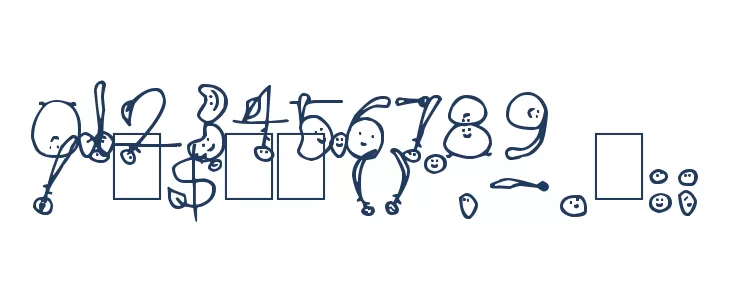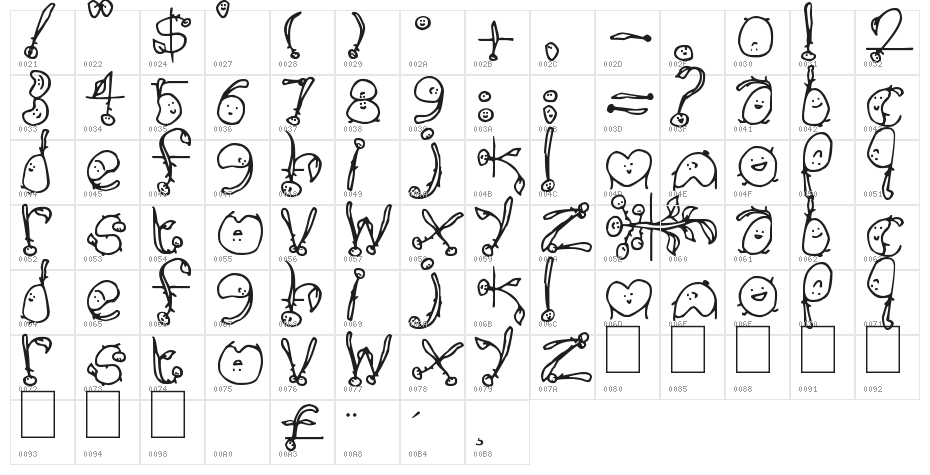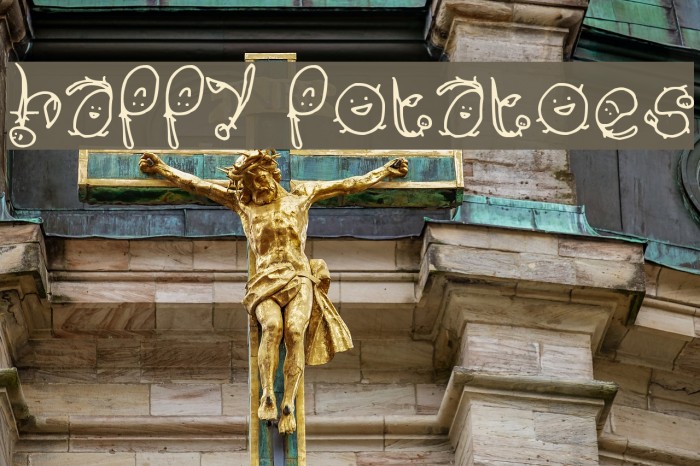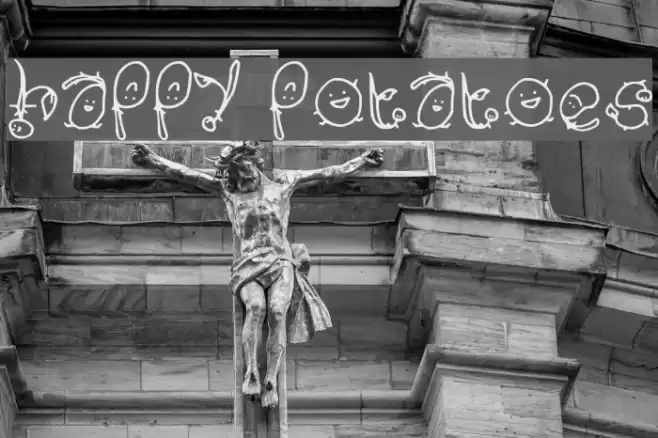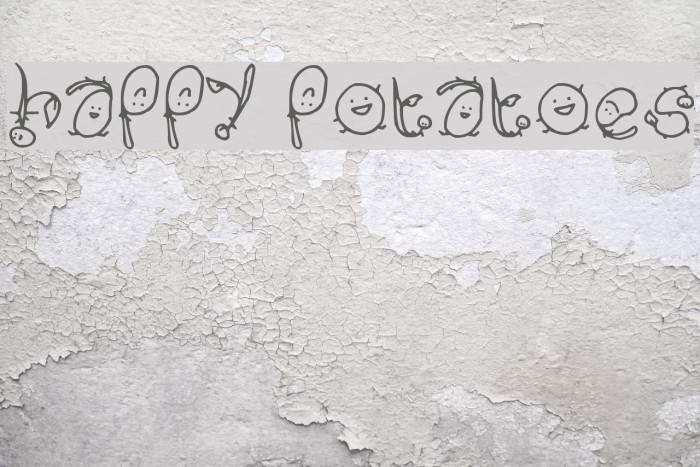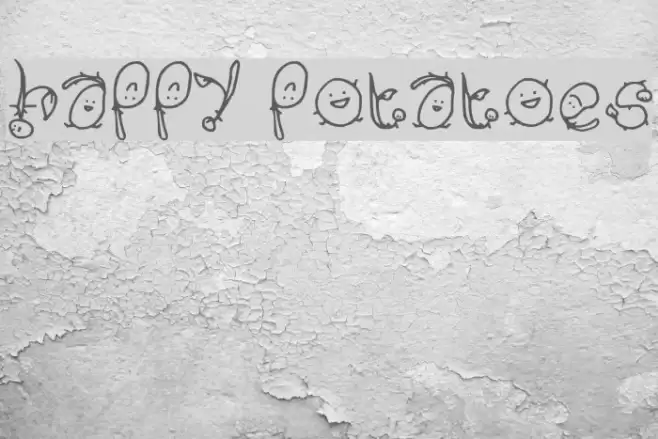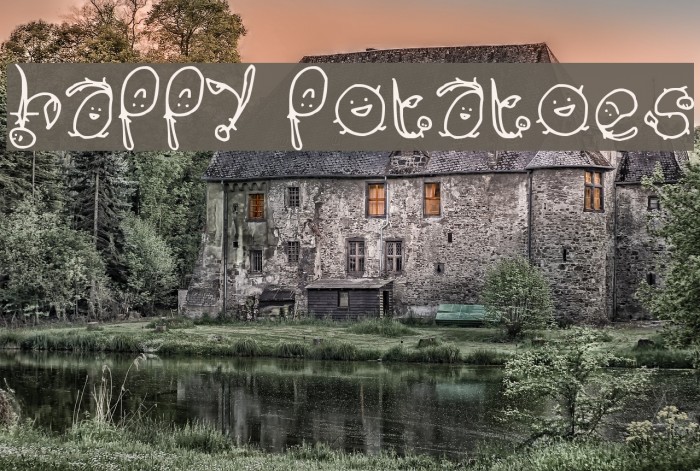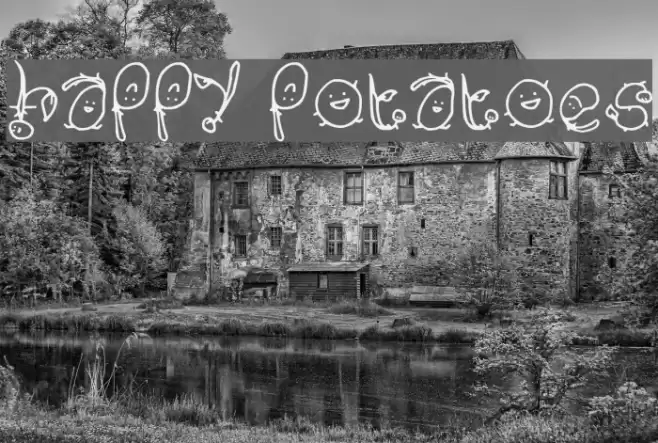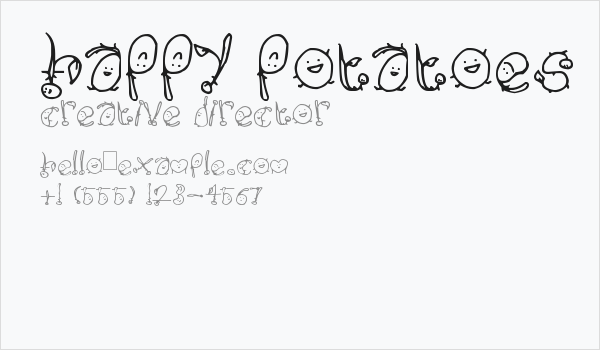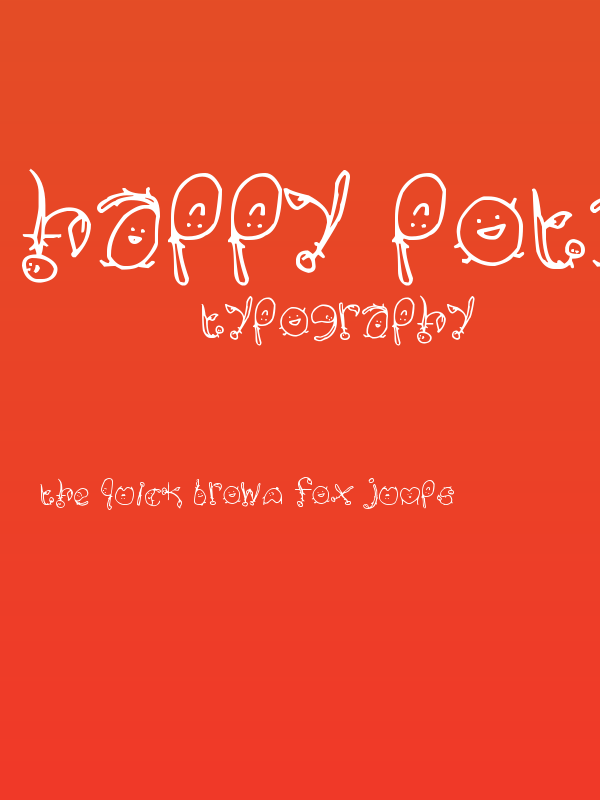
Happy Potatoes Font
Happy Potatoes Description
This playful and whimsical font features characters designed with a potato theme, each letter and number incorporating elements like eyes, smiles, and quirky shapes. The style is highly decorative, with each character having a unique personality, making it ideal for projects that require a fun and lighthearted touch. The font includes both uppercase and lowercase letters, numbers, and a selection of special characters, all maintaining the same joyful and cartoonish aesthetic. The strokes are uneven, adding to the hand-drawn feel, and the overall design is highly creative, perfect for children's materials or playful branding.